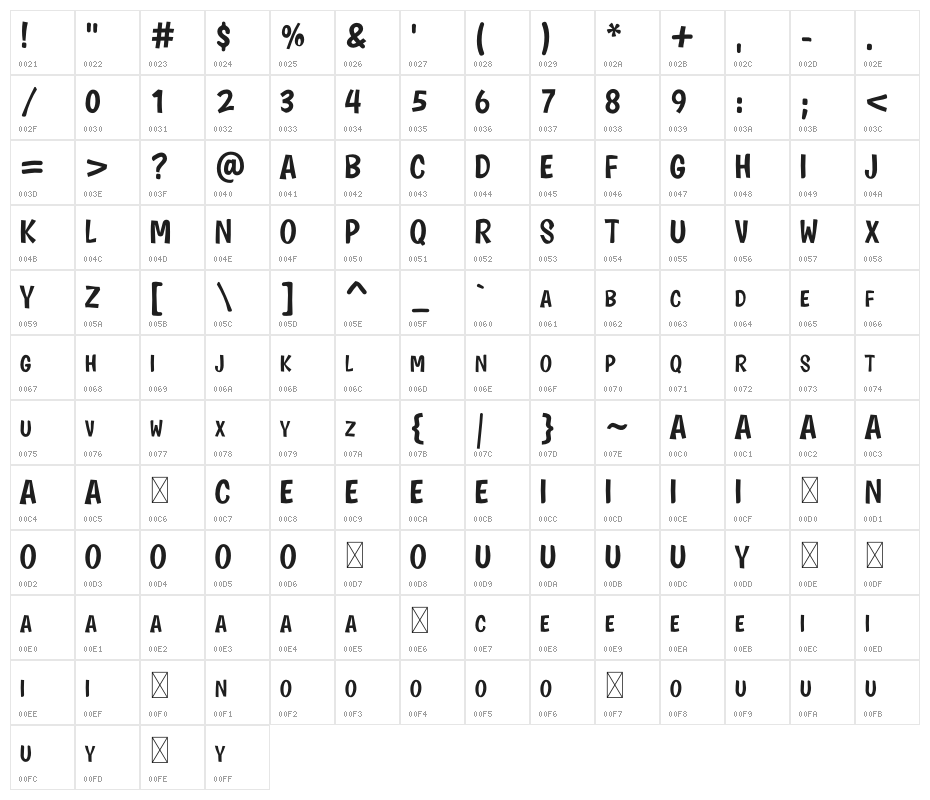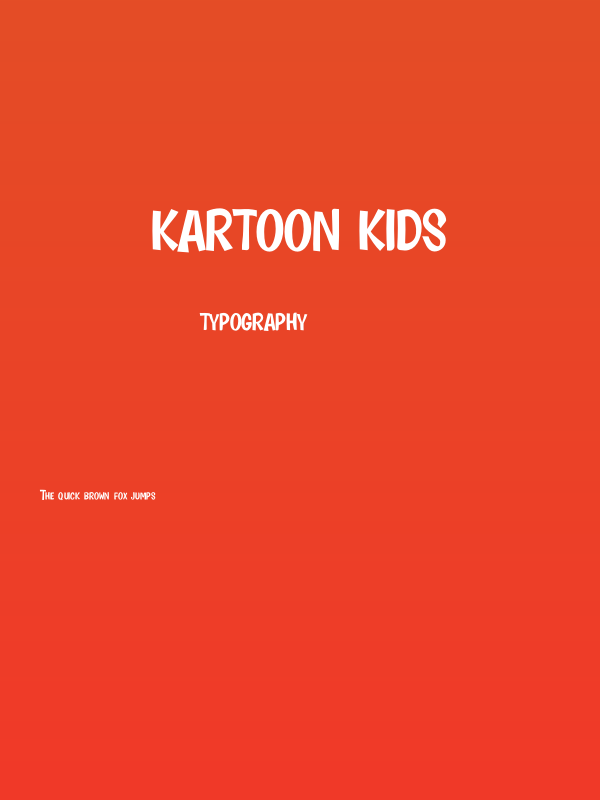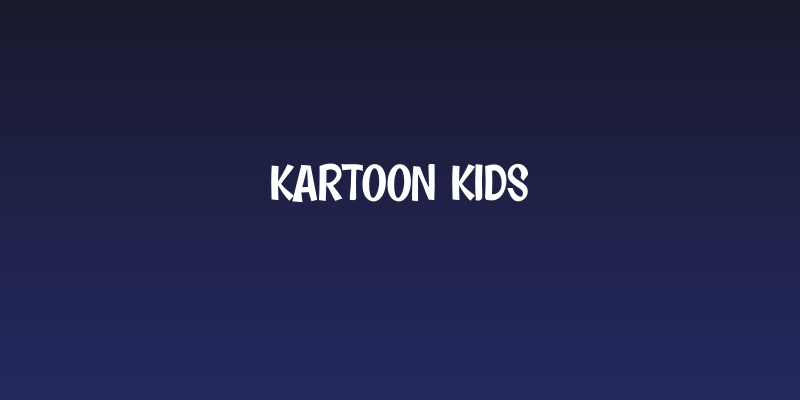
Kartoon Kids Font
Kartoon Kids Description
This playful and whimsical font features bold, rounded characters with a hand-drawn appearance, reminiscent of classic cartoon lettering. The letters are slightly irregular, adding a sense of fun and spontaneity. The uppercase and lowercase letters maintain a consistent style, with exaggerated curves and a lively bounce. Numbers and special characters are equally dynamic, fitting seamlessly into the overall aesthetic. The font's thick strokes and rounded edges make it highly legible, even at smaller sizes, while its unique style ensures it stands out in any design.
| Proposed Projects | Ideal for children's books, comic strips, playful branding, and educational materials. |